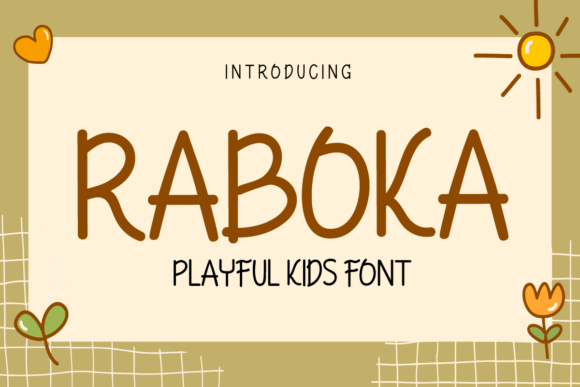
Dive into the world of RABOKA Font, a typographic playground where playful design reigns supreme. This whimsical font is an ode to joy and creativity, infusing your projects with a lighthearted charm. With RABOKA Font, your designs will effortlessly captivate audiences, leaving a lasting impression of fun and delight.
Crafted with meticulous attention to detail, RABOKA Font bursts with the vibrancy of playful typography. Its quirky characters dance across the page, instantly grabbing attention and adding a touch of whimsy to your creations. Whether you're designing invitations, posters, or branding materials, RABOKA Font is the perfect choice to bring a smile to your audience's faces.
The versatility of RABOKA Font knows no bounds. Its playful style seamlessly adapts to a wide range of applications, from children's book illustrations and party invitations to social media graphics and website designs. Infuse your projects with a sense of joy and creativity that speaks to audiences of all ages.
RABOKA Font's unique charm extends beyond its visual appeal. Its readability remains uncompromised, ensuring that your message is conveyed clearly and effectively. Plus, with its extensive language support, RABOKA Font resonates with a diverse audience, making it an inclusive choice for global projects.
Experience the transformative power of RABOKA Font today. Elevate your creative projects to new heights with this exceptional typeface, and let your designs dance with the spirit of playful typography. Embark on a typographic adventure with RABOKA Font and discover the boundless possibilities of playful design.